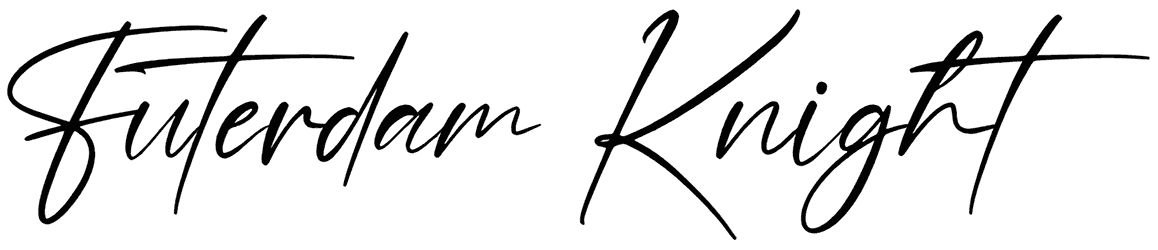
Futerdam Knight Font
If you are looking for a way to make your writing look natural and want to get away from the digital world, Futerdam Knight is the tool to achieve your goal.
By using this handwritten font, you can create a human mood in your writings and remove it from machine mode. This script font has two styles that help you implement wedding cards, packaging writings, and tattoos.